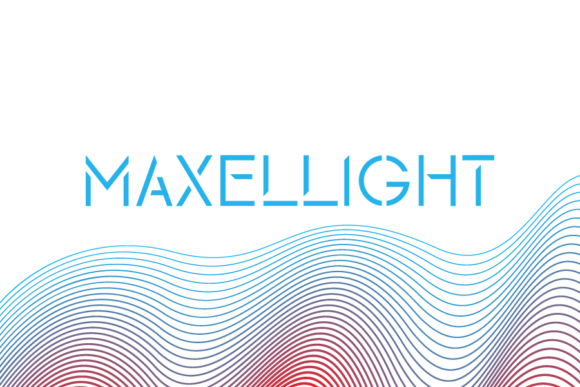
Immerse yourself in the world of typography where artistry meets functionality with Maxellight, the extraordinary sans serif font family meticulously crafted by Sign Studios. Its captivating characters dance across the digital canvas, leaving a trail of elegance and charm.
Maxellight is an ode to the fusion of classic forms with a modern twist. Its Latin details are meticulously balanced, showcasing distinctive contrasts that add depth and intrigue to your designs. Each letterform is a testament to the marriage of timeless beauty and contemporary flair.
With Maxellight, your designs will transcend the ordinary and embrace the extraordinary. Its versatility knows no bounds, allowing you to effortlessly elevate any project, from branding masterpieces to breathtaking websites and thought-provoking presentations. Maxellight effortlessly adapts to your creative vision, whether you seek a subtle touch of sophistication or a bold statement of individuality.
Unleash your creativity and embark on a typographic journey where your ideas take center stage. Maxellight is the ultimate tool for designers, creatives, and typography enthusiasts who seek to leave a lasting impression. Download Maxellight today and witness the transformation of your designs into works of art that captivate and inspire.